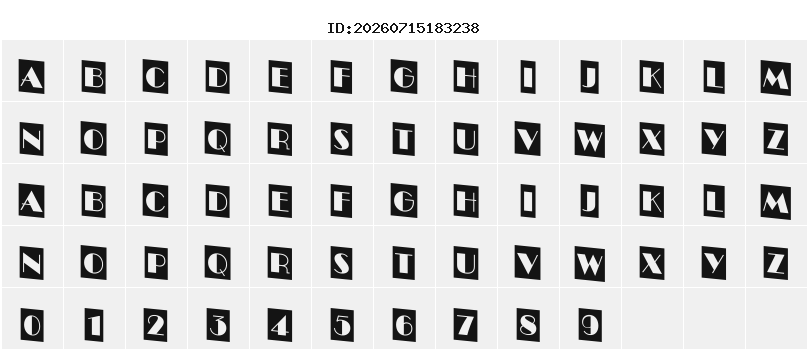
• Font Name: a_BentoCmDn
• Full Font Name: a_BentoCameoDown
• Designer: W.Chufarofsky & M.Slutsker
About a_BentoCmDn.ttf
a_BentoCmDn.ttf is a modern, elegant sans-serif font designed for ultimate readability and visual harmony. Perfect for branding, headlines, web design, and print materials.